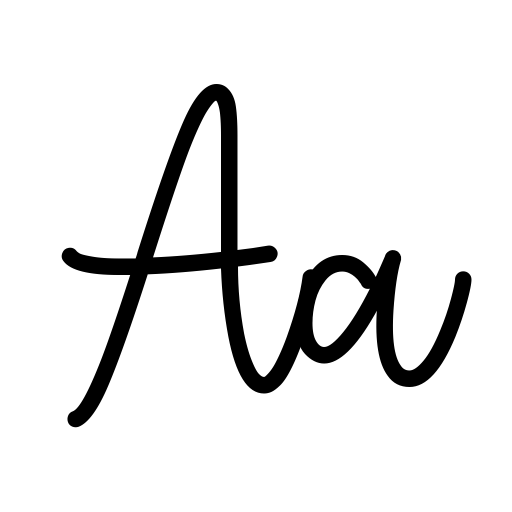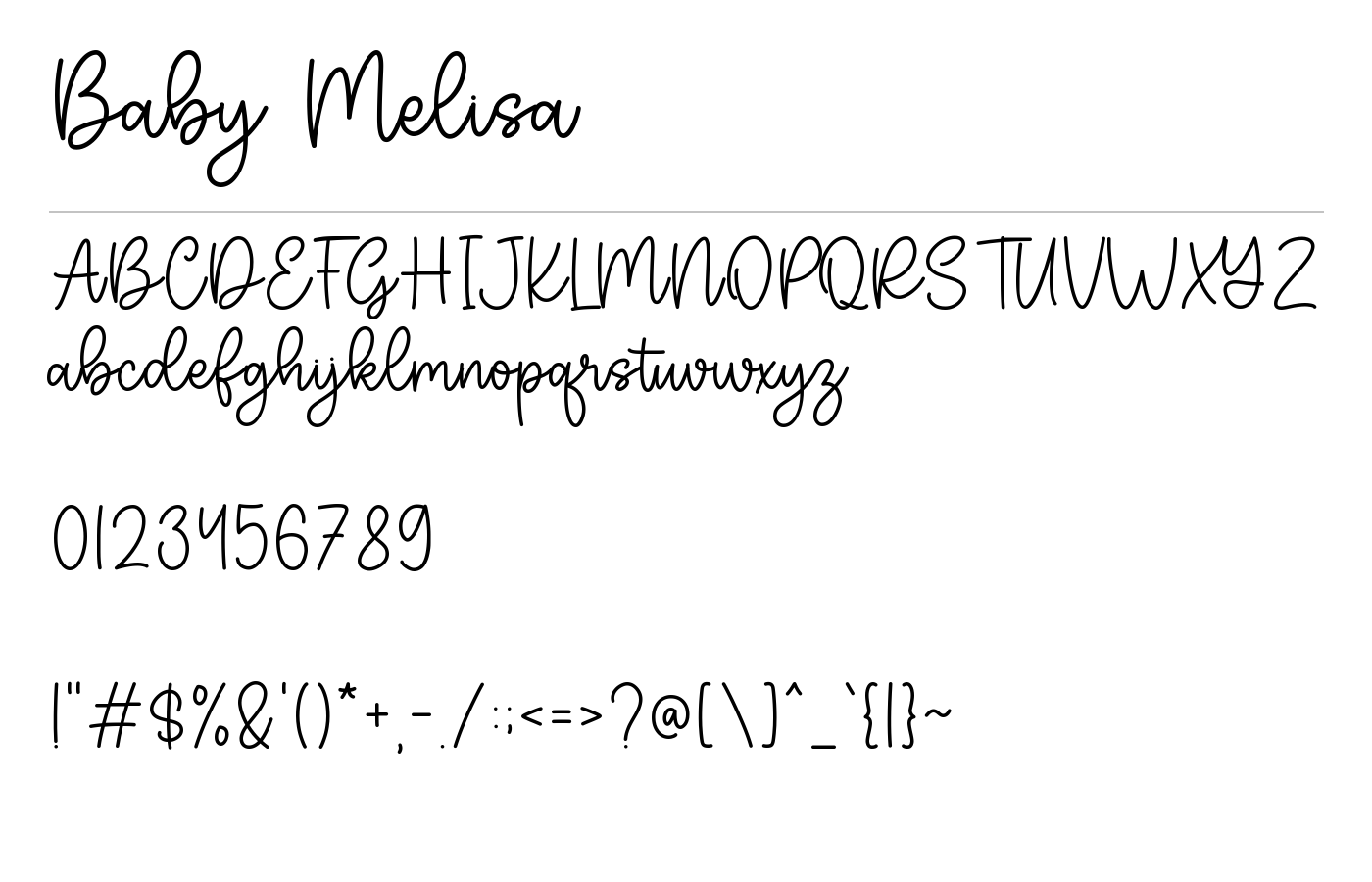
Baby Melisa is a charming handwritten script font with a light, airy feel and smooth, flowing strokes that convey warmth and approachability. Its tall x-height and rounded letterforms make it ideal for casual, friendly designs like invitations, branding for creative or personal projects, and social media graphics. This font’s playful yet neat style works well in headlines or short texts where a touch of personality and elegance is desired.
Baby Melisa Font
About Baby Melisa Font
| Font family | Baby Melisa Font |